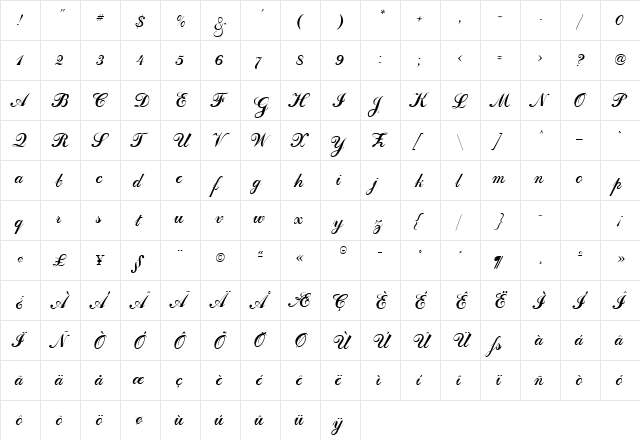
Dahling Script SSi Regular
Design Context for Dahling Script SSi Typeface
Dahling Script SSi flows with the natural rhythm of handwritten lettering, making it ideal for designs that call for warmth and personal expression.
Font Pairing: Combine Dahling Script SSi with a simple geometric sans for maximum contrast — the tension between flowing curves and clean structure is a classic typographic pairing.
Pro Tip: Pair Dahling Script SSi with a clean sans-serif for supporting text. The contrast between fluid script and geometric structure creates an elegant typographic hierarchy.